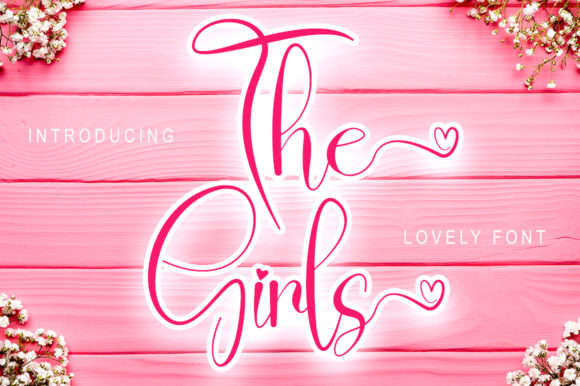
Welcome to the world of The Girls Font, a remarkable creation by fahmistudio99 that will bring a touch of elegance and charm to your digital creations. Immerse yourself in the beauty of this script font, crafted with the utmost care and attention to detail, to elevate your designs to new heights of sophistication.
The Girls Font is a symphony of flowing strokes and elegant curves, evoking a sense of timeless romance and playfulness. Each character dances across the page with an effortless grace, inviting you to explore the realm of creativity and self-expression. Whether you're a seasoned designer or just starting your journey, this font is your perfect companion, ready to transform your projects into captivating masterpieces.
With The Girls Font, the possibilities are endless. Create stunning logos that exude luxury and exclusivity, design eye-catching social media graphics that demand attention, or craft heartfelt invitations that leave a lasting impression. This versatile font is the perfect choice for branding, marketing, and personal projects alike.
Step into the world of The Girls Font and unleash your imagination. Let your creativity soar as you explore the endless possibilities of this remarkable script font. Its easy-to-read style and PUA encoding make it a breeze to use, ensuring that your projects come to life with effortless grace and charm.